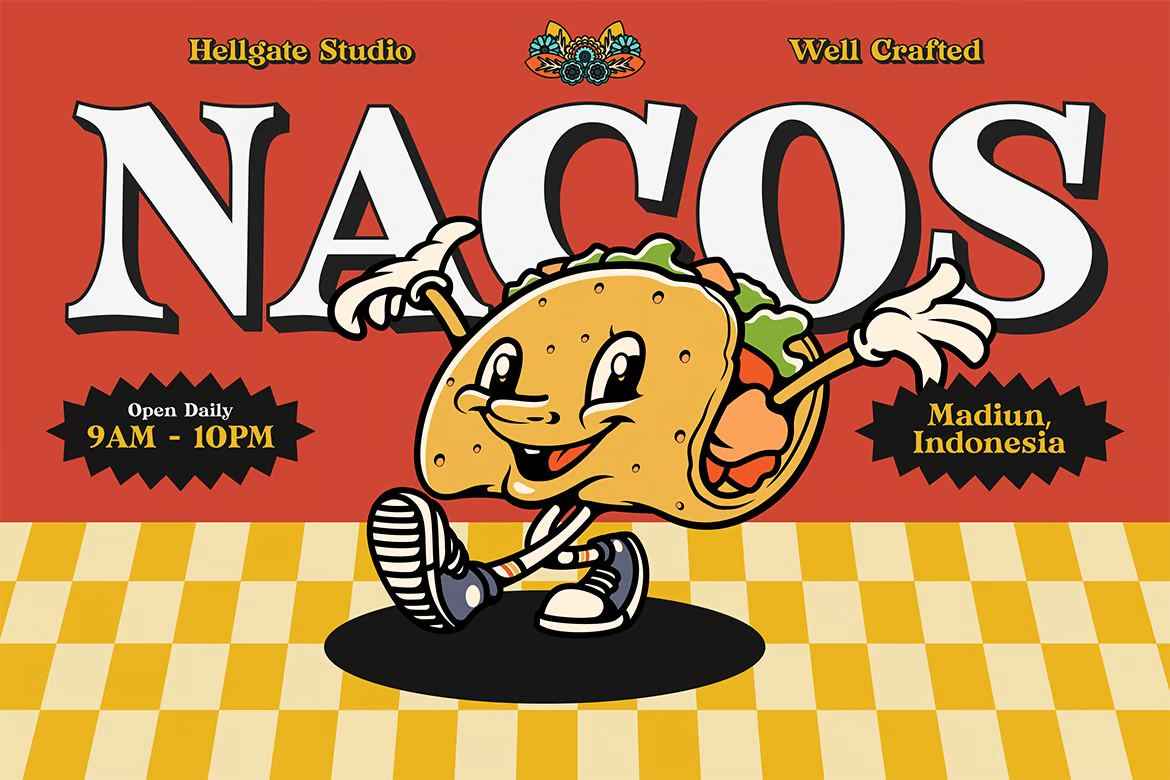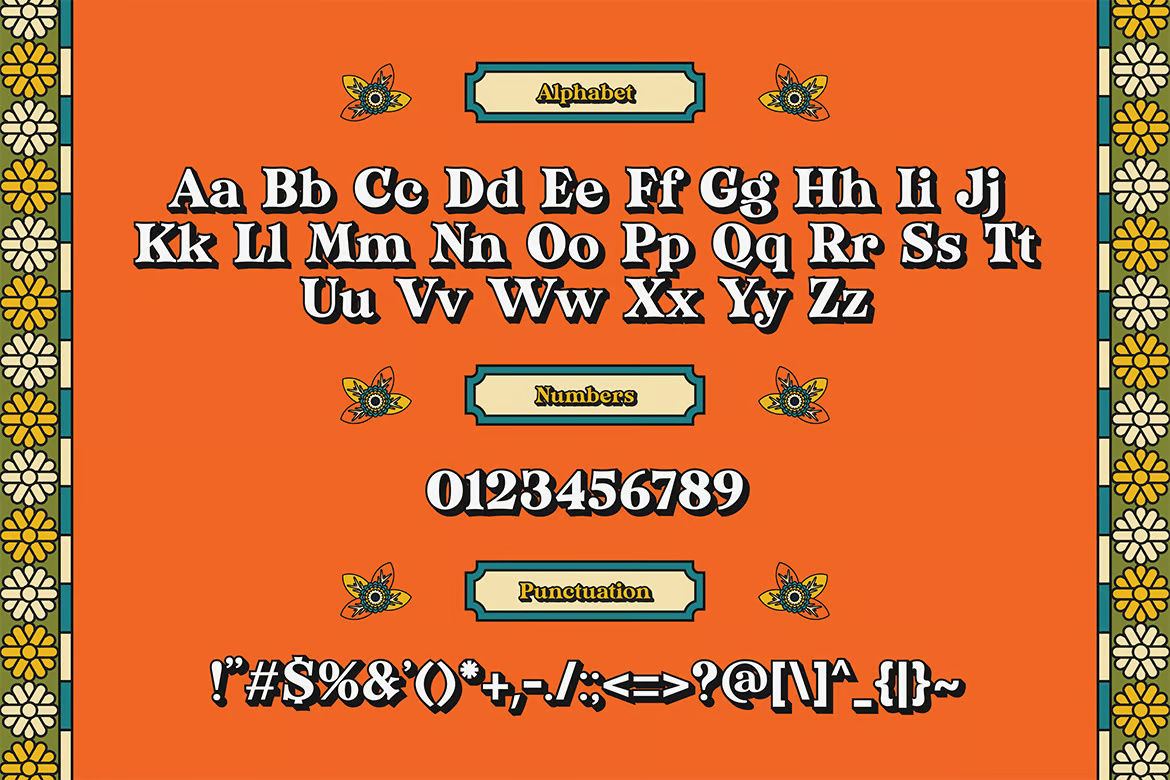
Nightale Retro Typeface
Nightale Retro Typeface is a stylish and bold typeface inspired by vintage aesthetics, blending classic typography with a modern twist. It features smooth curves, sharp edges, and a nostalgic charm that makes it perfect for logos, branding, posters, headlines, and creative projects. This font captures the essence of retro signage, giving a distinctive and timeless appeal to any design.
With its unique character design, Nightale Retro Typeface is ideal for vintage-style graphics, packaging, apparel design, and social media creatives. Whether you’re looking to craft a nostalgic logo or add a retro touch to your artwork, this typeface provides versatility and elegance.